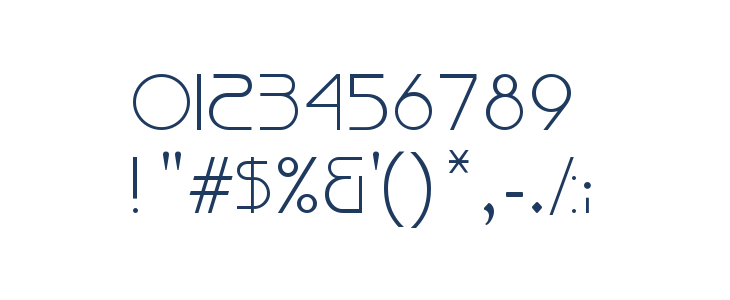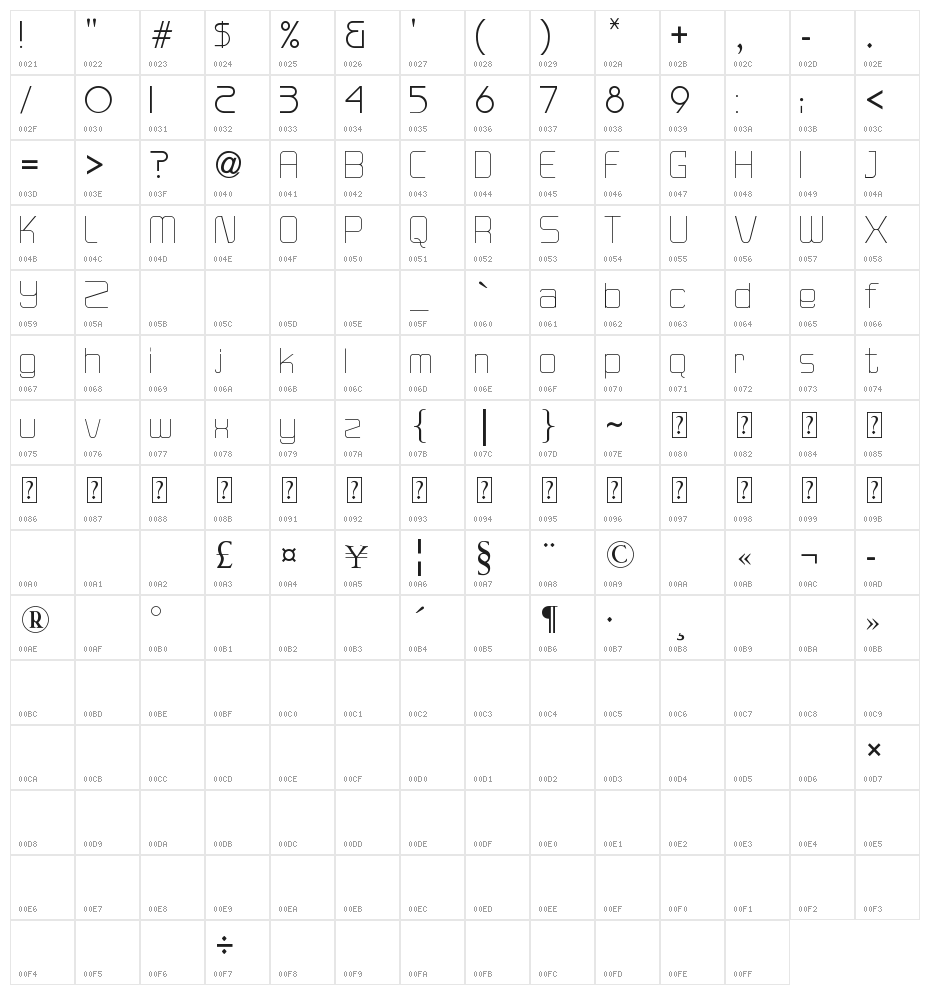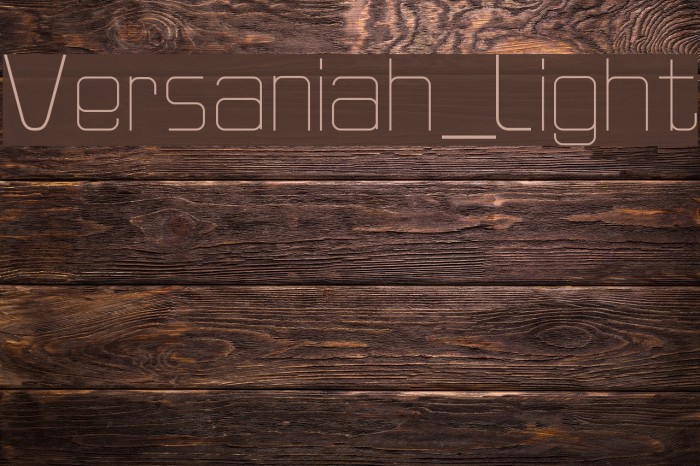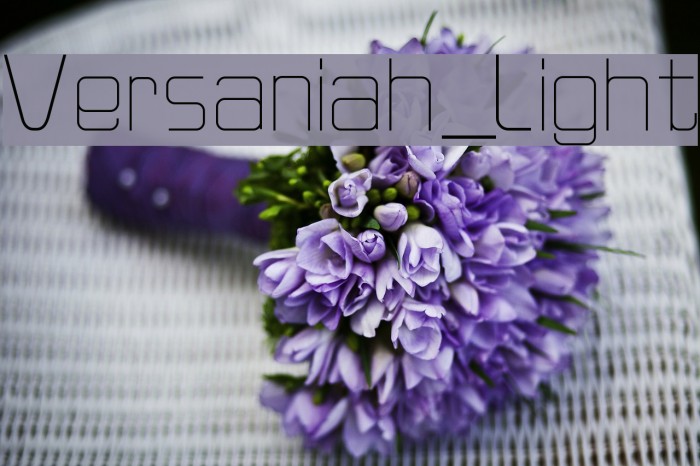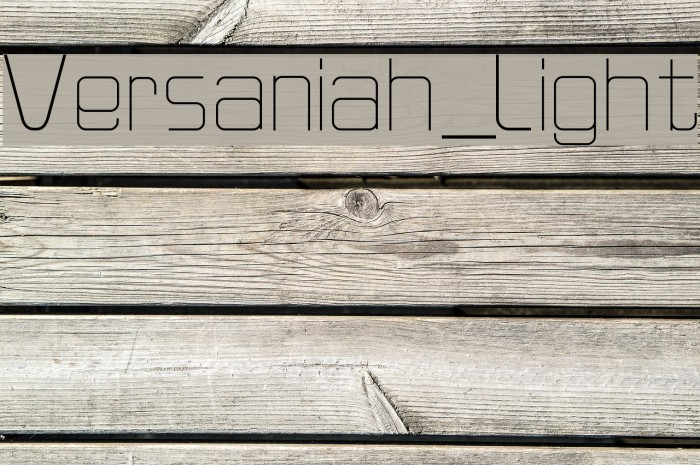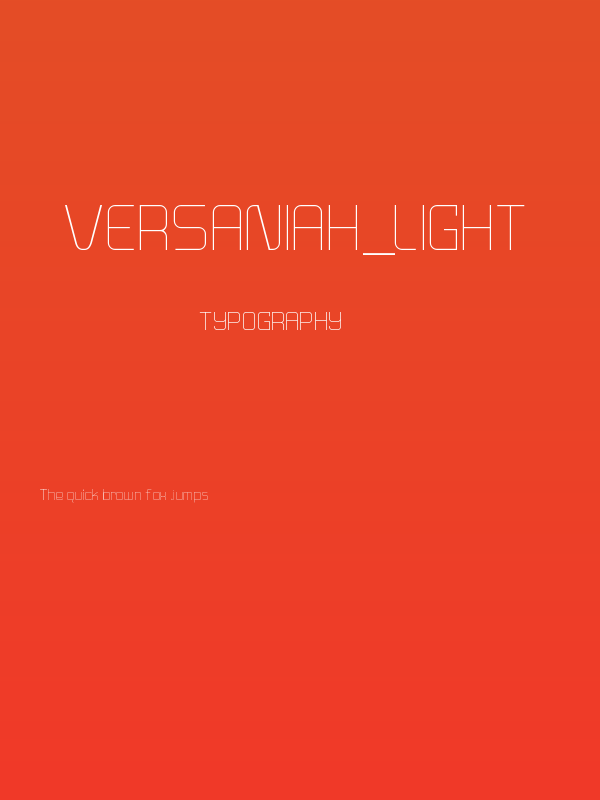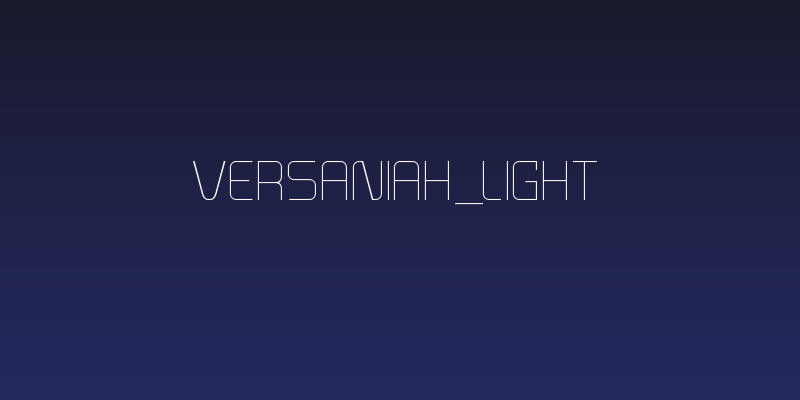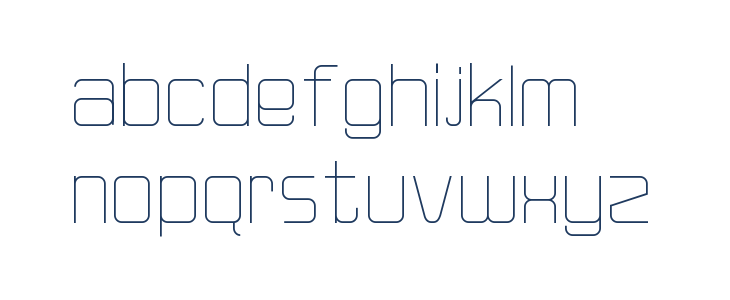
Versaniah_Light Font
Versaniah_Light Description
This font features a modern, geometric design with clean lines and a minimalist aesthetic. The characters are constructed with uniform stroke widths, giving it a sleek and contemporary appearance. The uppercase and lowercase letters maintain a consistent height, contributing to a balanced and harmonious look. The numerals and special characters are designed to complement the alphabet, ensuring readability and style. Its open and airy structure makes it suitable for a variety of design applications where clarity and modernity are desired.
Use CaseHeadlines, Logos, Digital Interfaces
Proposed ProjectsIdeal for branding, digital interfaces, modern posters, and minimalist design projects.